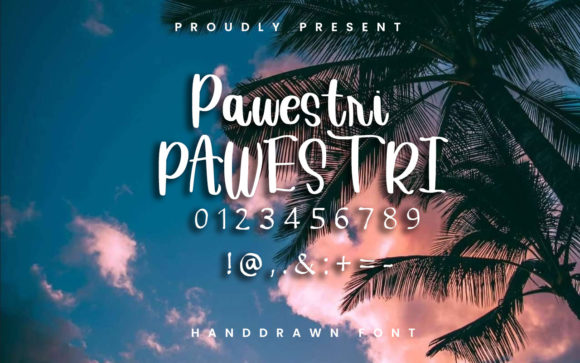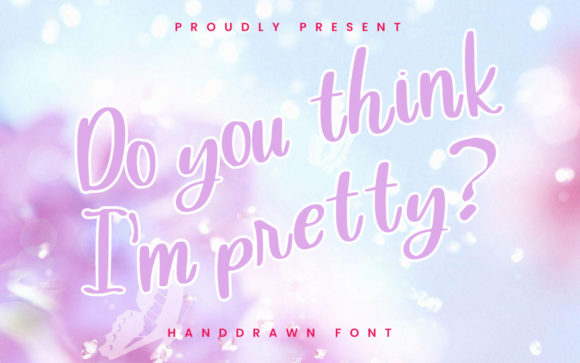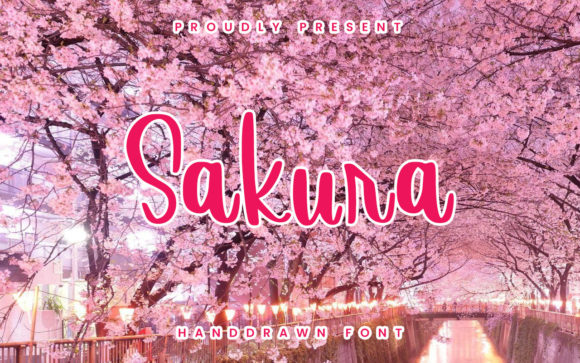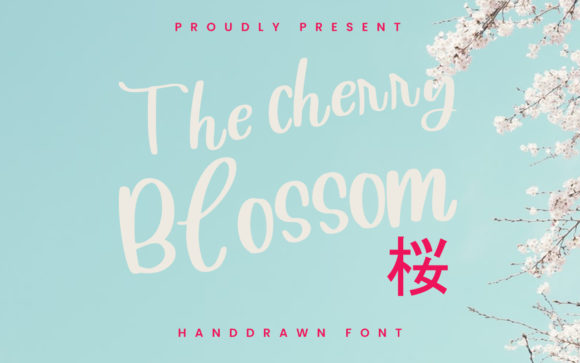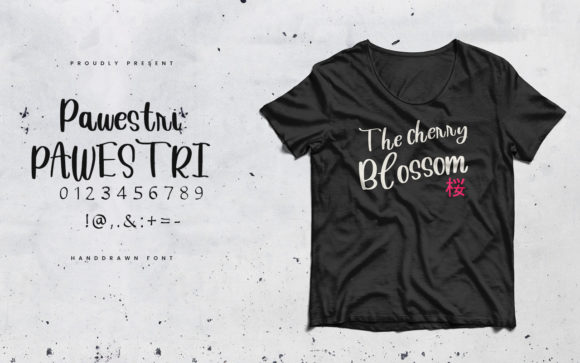
Introduction to Pawestri Font
Remember that moment when you’re brainstorming a creative project, and the perfect font is all that’s missing? You’ve got the concept, the vision, but something’s just not clicking. That’s where the Pawestri Font comes in – a game-changing, chic and quirky handwritten font that can breathe new life into any design.
Key Features of Pawestri Font
- Pawestri Font is a unique design resource ideal for creative projects requiring a touch of elegance and sophistication.
- Features a high-resolution design, suitable for print and digital applications, including business cards, posters, and web design.
- Pawestri Font is a versatile design element that can be used in a variety of creative projects, from logos and branding to packaging and editorial design.
Honest Review: Pawestri Font
I recently had the chance to work with the Pawestri Font, and I must say it’s a solid addition to any designer’s toolkit. The font’s unique design and elegant style make it perfect for creative projects where you want to add a touch of sophistication.
- High-quality design that’s perfect for both digital and print projects
- Great for logos, branding, and any other design resource where a professional look is required
- ⚠️ Limited font styles available, which might be a drawback for some designers
- ⚠️ Not ideal for projects that require a lot of font customization
Overall, I’m impressed with the Pawestri Font. It’s a great design resource that’s perfect for creative projects where a high-quality font is required. While it may not be ideal for every project, it’s definitely worth considering for your next design endeavor.
The Pawestri Font is suitable for a wide range of creative projects, including logos, brochures, business cards, and social media graphics. Its high-quality design makes it an excellent choice for any design resource.
Alternatives to Pawestri Font
Great Vibes is a high-quality, cursive font perfect for creative projects that require a touch of elegance. It features a transparent background, making it ideal for overlaying on images or using as a design resource for social media graphics.
When to use: For wedding invitations, quotes, or any project that requires a romantic feel. Great Vibes is a great alternative to Pawestri Font when you need a more delicate, handwritten look.
Comparison: While Pawestri Font has a more geometric feel, Great Vibes is more fluid and organic, making it a great choice for projects that require a softer touch.
Pacifico is a beautiful, modern script font that’s perfect for creating a unique and eye-catching design. It features a high-quality design and a transparent background, making it a great design resource for creative projects.
When to use: For branding, packaging, or any project that requires a touch of sophistication. Pacifico is a great alternative to Pawestri Font when you need a more modern, elegant look.